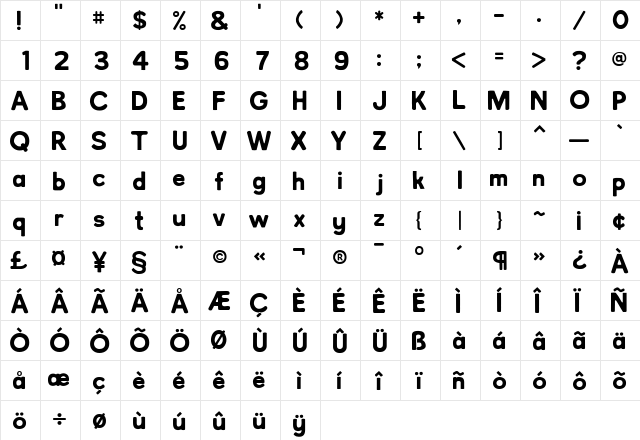
NorthBergen Regular
Design Context for NorthBergen Typeface
NorthBergen is a composed and adaptable typeface that performs quietly and consistently across a wide range of design contexts.